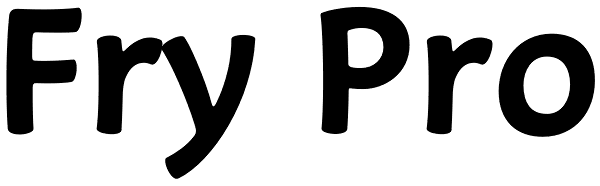
Fry Pro
The typeface Fry was developed in 2008 specially for the Sky-Fish company (fish and seafood dealer). This type is designed for small texts and has a friendly and a fairytale historic flavor. Fry takes the openness and dynamism of humanistic sans...